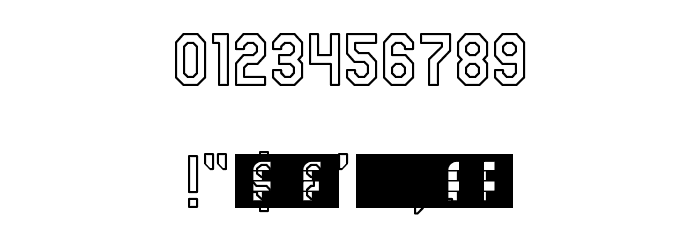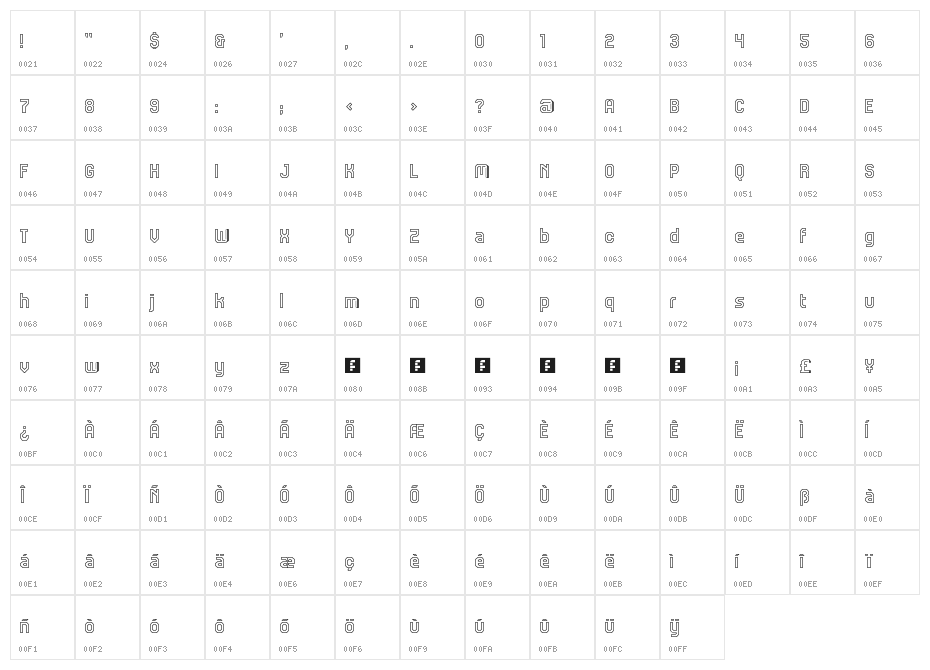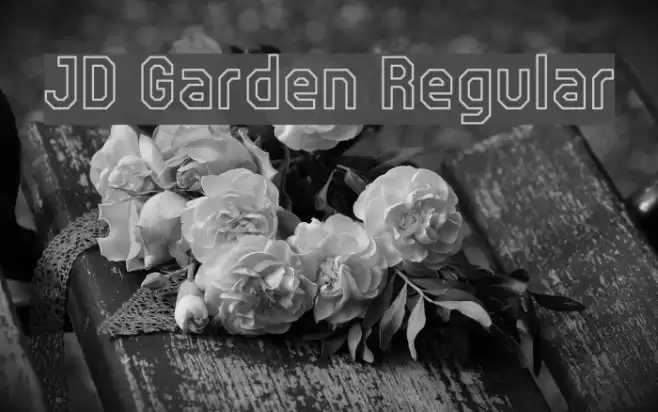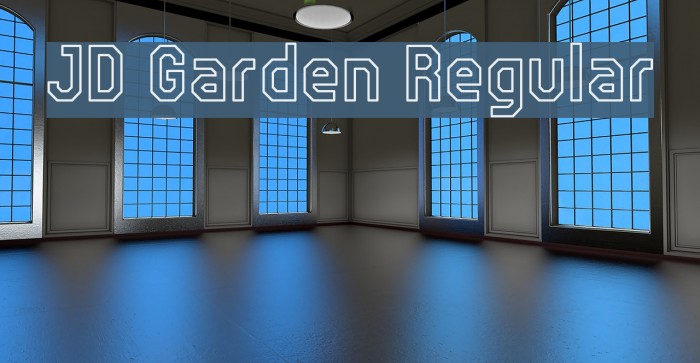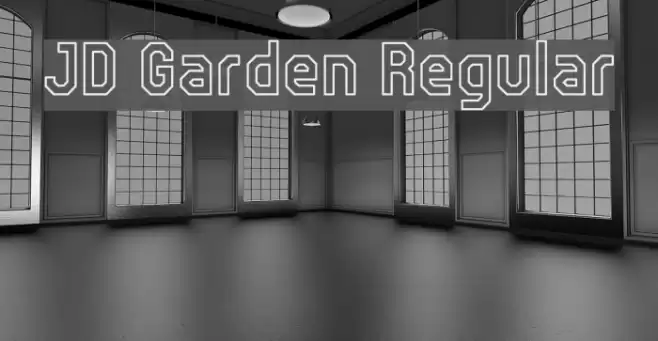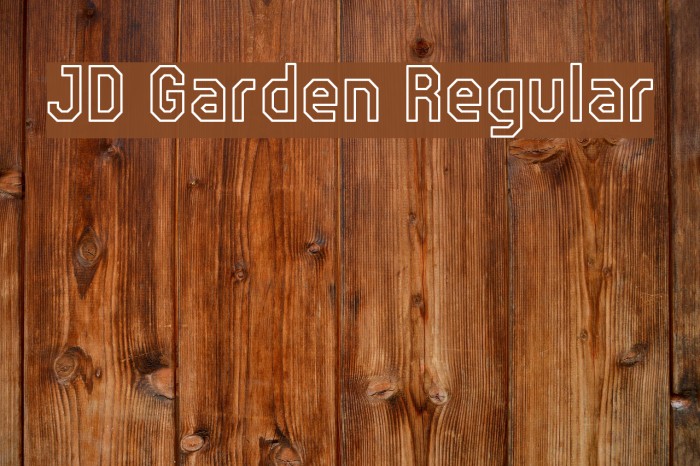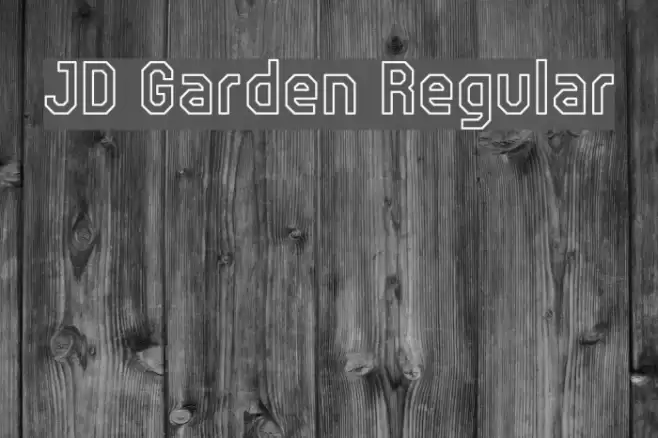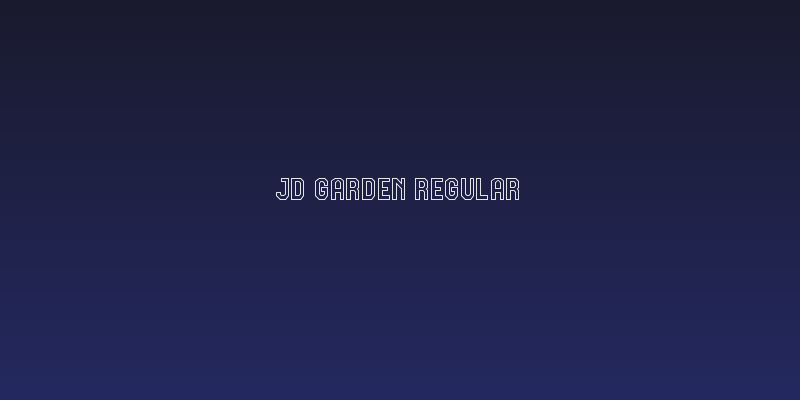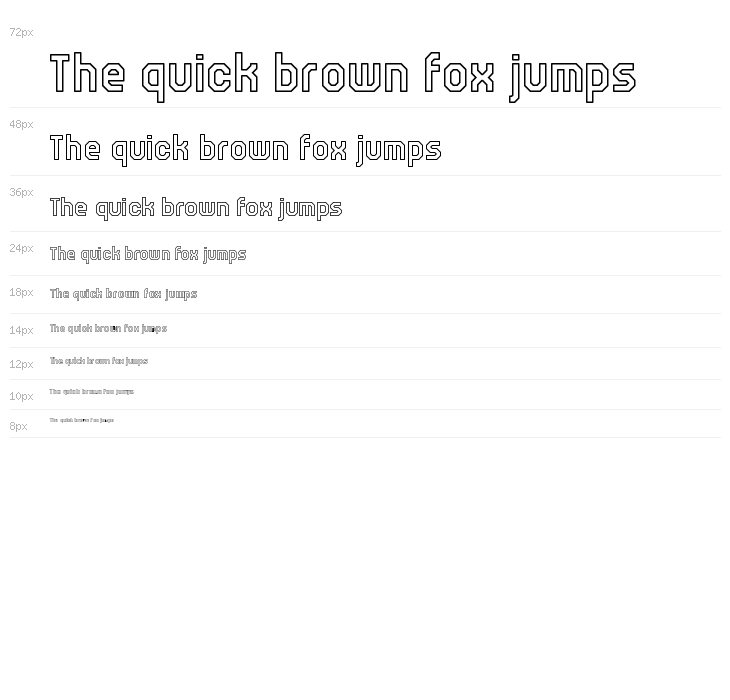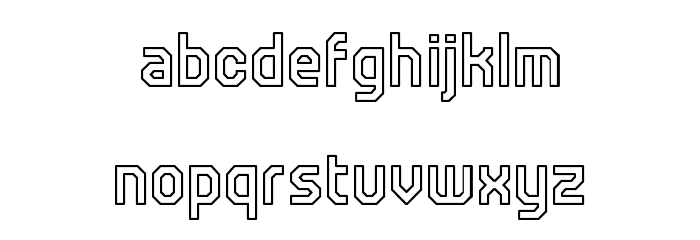
JD Garden Regular Font
JD Garden Regular Description
This font features a unique, geometric design with a hollow, outlined appearance. The characters are constructed with straight lines and sharp angles, giving it a modern and futuristic feel. The uppercase and lowercase letters maintain a consistent style, with a uniform stroke width that creates a cohesive look. The numbers and special characters follow the same design principles, ensuring a harmonious overall appearance. This font's distinct style makes it stand out, while its clean lines and open spaces provide excellent readability.
| Proposed Projects | Ideal for tech-themed designs, modern branding, posters, and digital artwork. |